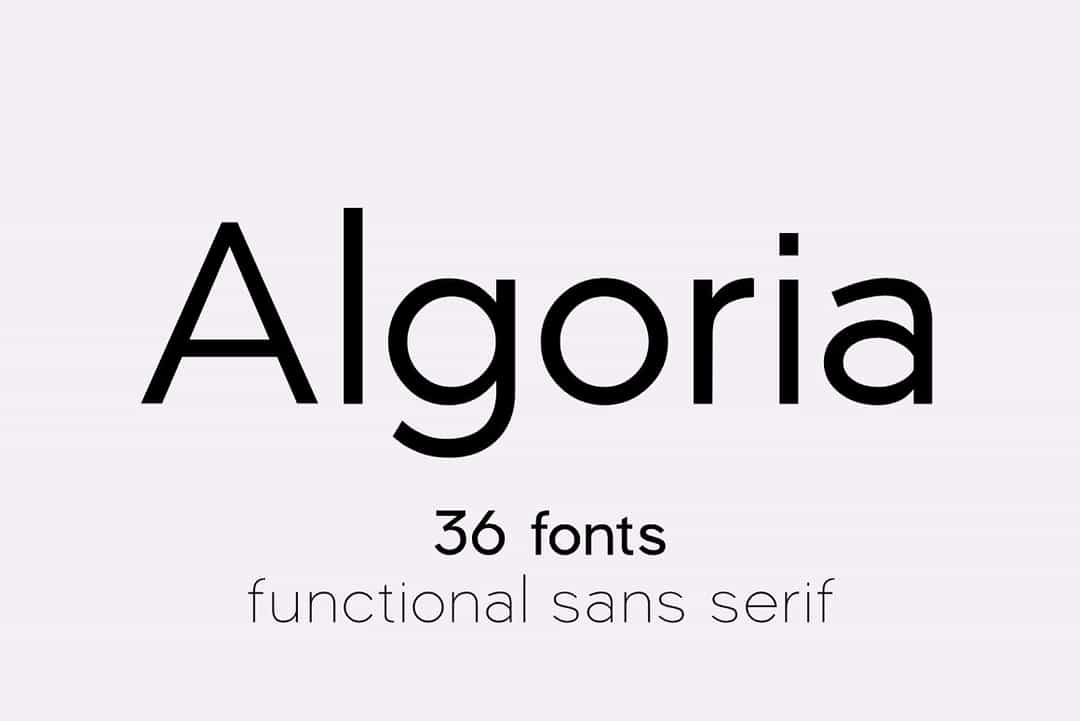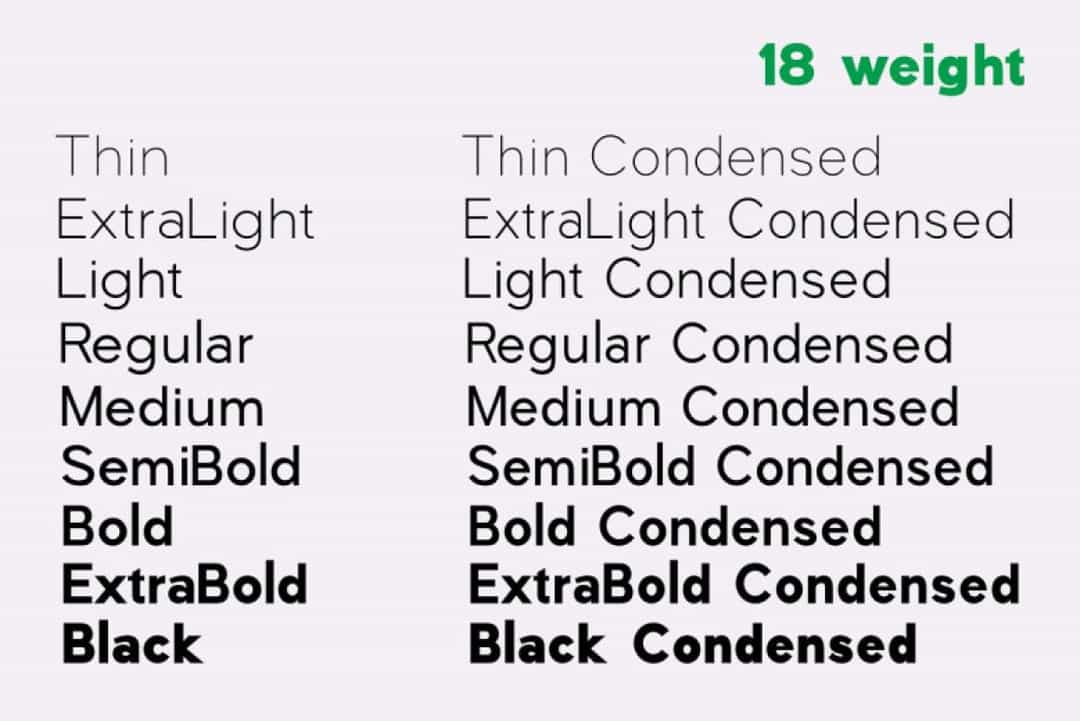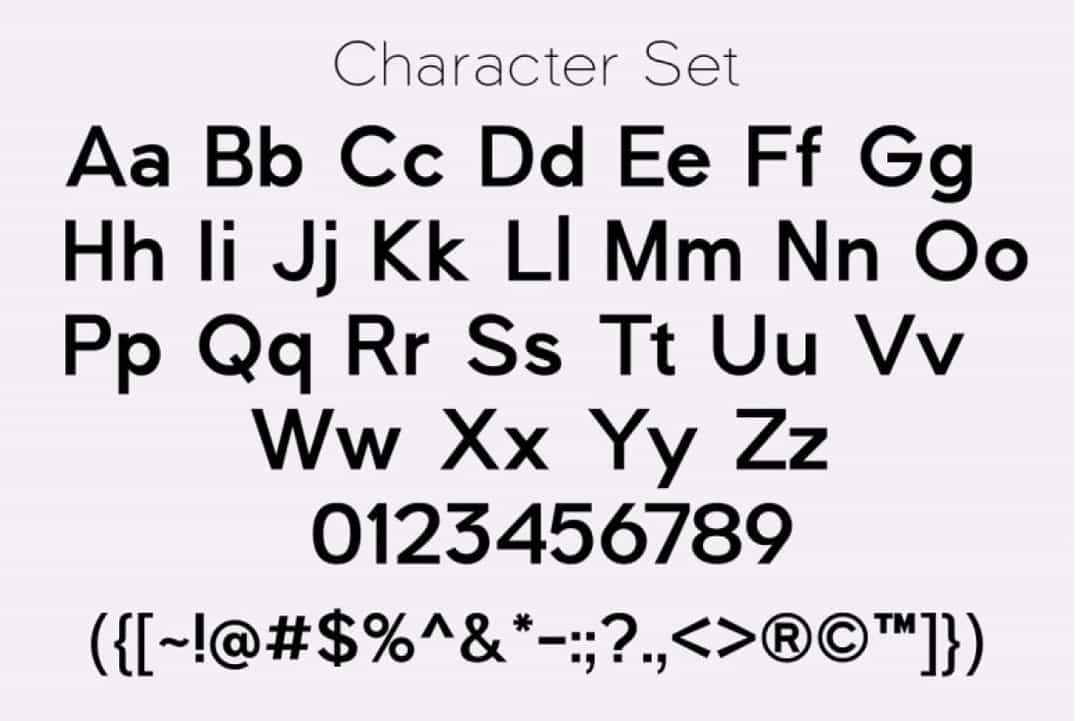
Algoria Light font is a practical sans serif font designed with wide character openings and an even distribution of black and white characters, providing high reading ability and pleasing neutrality designs that blend mathematics precision with passion for creating these intricate details.